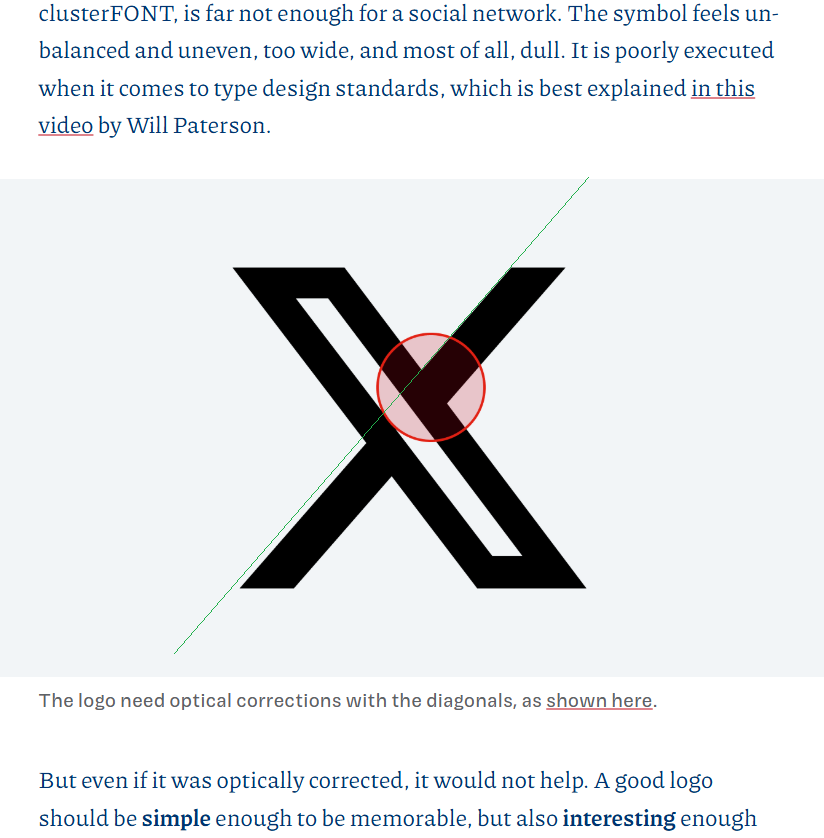
Rebranding Twitter to X removed the last bit of joy from this platform by butchering its visual identity. Is the new logo only a Unicode symbol, or probably just taken from an actual font? In this post, and video, I’ll dive into the details, while showing you what you should pay attention to, when choosing a font for your next logo.
Along with an emotional rant 🤬, we will dive into three major questions:
- What does this 𝕏 Unicode character stand for?
- Can you simply use a letter of a font for a logo?
- What about its execution? Is it any good?
How did this happen
Within a weekend, after Elon Musk’s call-out for a “good enough logo”, one random winner was liked and picked by the chief twit, sorry, chief X, starting a rushed and sloppy rebrand.
The selected logo replaced the beloved bird within hours, the iOS app icon changed one week later.
During this turmoil, comments came up that the logo was simply a Unicode character, or maybe just taken from an actual font? But let’s start with the first claim.
1. Is the Twitter X Logo just a plaintext character?
The claim that X is using a Unicode character as logo, is a bit misguiding. Because Unicode is not a font. The Unicode standard defines characters, assigning a unique number to each one. This makes sure a capital X is the same character in different fonts, across languages and scripts. But you need a font to access a Unicode character. And depending on the font’s design, the appearance of a character can vary.
What is true though, is that the design looks very close to a character in this Unicode chart of Mathematical Alphanumeric Symbols, the Mathematical Double-Struck Capital X, or U+1D54F, to be exact.
But how this exact symbol now will be displayed depends on the font. And most fonts, like Roboto, Arial or Times New Roman, don’t even come with this specific character 😳.
So if a certain character is not contained in a specific font, in many cases it will fall back to the default fonts on the operating systems of your device. On macOS or iOS, the character close to the X logo is shown in the system font STIX Two Math. On other platforms it can be a different one, or not be shown at all.
It is no copy of the Unicode character
When it comes to the design, since the exact font will be different, depending on the circumstances, you can not say that it is a blunt copy. It definitely is rather unoriginal to base a logo in all its specifics on some random character from a chart – more on that later.
What does 𝕏 stand for in math?
But what does this character actually stand for, as a mathematical symbol? More familiar to you might be the double-struck ℙ used for primes, or the ℕ, used for natural numbers. The reminiscence of math classes brings a shiver down my spine 😬 … The double-struck 𝕏 however does not stand for anything specific, as far as I could find out.
2. Is the Twitter X logo taken from an actual font?
Another thing that was widely discussed, was that the logo is simply was a character from the an exact font, as Fontendo claimed. When looking at Monotype’s Special Alphabet 4, the capital X looks just like the new Twitter logo.
Can you use a letter of a typeface for a logo?
Is that allowed? This depends on the EULA, or the End User License Agreement, and varies from font to font. The majority of fonts can be used to create a logo when purchasing a desktop license, even if it’s not explicitly mentioned. But there are also foundries, like PangramPangram, that offer specific logo licenses.
However, at times it is specifically mentioned that it’s not allowed to use an individual glyph, symbol or any character from the font in a logo. For example, with gorgeous Neutra Face by House Industries, it is explicitly not permitted to use it in a logo with the desktop license. You need to contact them to get an additional license for that. So always read the license agreement first before falling in love with a typeface.
The X logo is not taken from this font
Special Alphabet 4 can be used as a logo, but the capital X is not identical with the new Twitter X logo. When directly comparing it, you can see that it slightly differs, mostly because the strokes of X logo are a bit thicker.
It’s okay to use a font, if it’s interesting enough
Now you might wonder if it’s bad to use a letter from a font, out of the box, for a logo design? Not necessarily, if it is interesting enough. And there might be a nice font where the X is, like this one.
But bear in mind, that it remains very replaceable, since anyone with that font can easily reproduce it. Bringing us to the final question …
3. Is it a good logo?
What was good enough for a podcast cover, the original usage of that clusterFONT, is far not enough for a social network. The symbol feels unbalanced and uneven, too wide, and most of all, dull. It is poorly executed when it comes to type design standards, which is best explained in this video by Will Paterson.
Totally agree with both of you. A logo should mean something — evoke a feeling, a story, a purpose. But hey, why bother when you can just slap an “X” that means absolutely nothing? Honestly, they could’ve whipped up a better design using any random font generator. Maybe next time they’ll actually try.
Your illustration of the unbalanced-looking X logo looks unbalanced because it IS unbalanced. That’s no optical illusion: the upper-right end of the / stroke has been slid to the left. Here’s the proof: